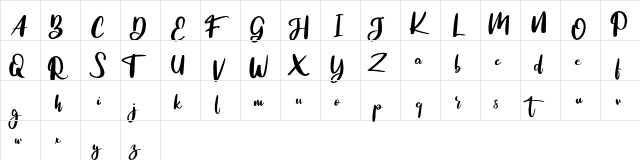
The blog malog FREE Regular
| Foundry | Vunira Design |
| Designer | Vunira Design |
Design Context for The blog malog FREE Typeface
The blog malog FREE is a composed and adaptable typeface that performs quietly and consistently across a wide range of design contexts.